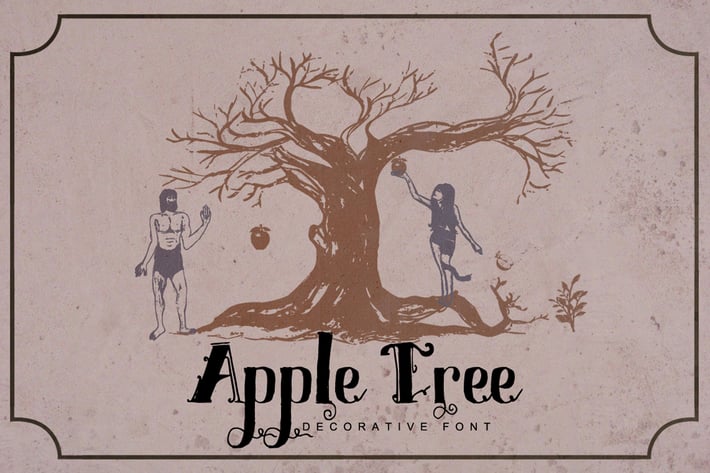
Apple Tree - Decorative Font
Apple Tree Font Decorative
This is Decorative Font, Suitable for design, element design, wedding, event, t-shirt, logo, badges, sticker, and awesome work, etc...